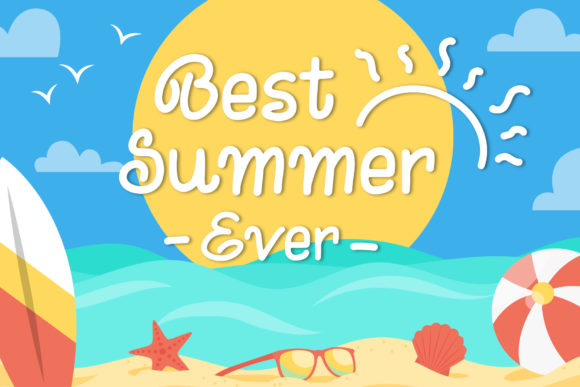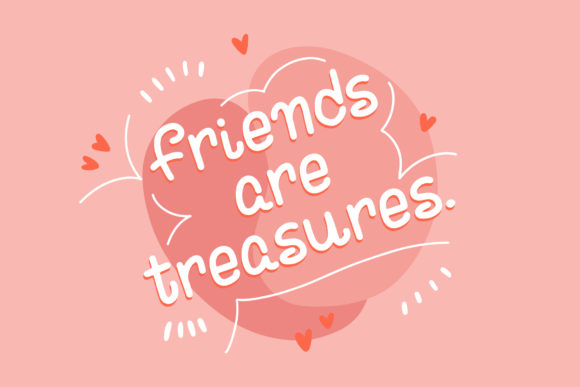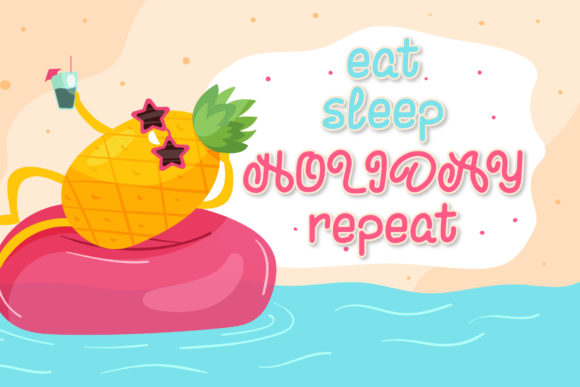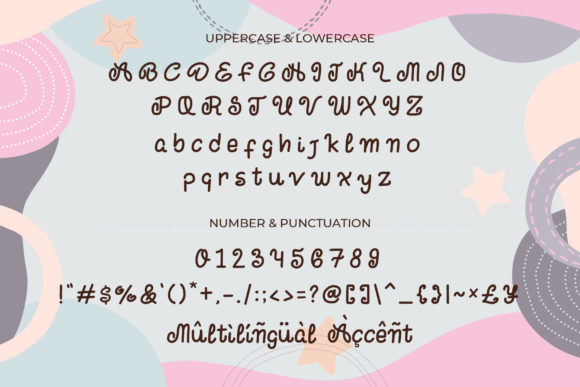
Have you ever been brainstorming a new project, pouring over sketches and color palettes, and suddenly, the perfect font pops into your mind? That’s exactly what happens when you come across the Beauties Forest Font. This adorable display font is a game-changer for designers looking to add a dash of playfulness to their work.
Beauties Forest Font is more than just a pretty face – it’s a versatile tool designed to elevate your creative ideas and make them truly unforgettable. Its unique, quirky style is guaranteed to bring a smile to your audience’s faces and set your projects apart from the crowd.
Beauties Forest Font Key Features
- Unique Characteristics: The font’s whimsical and elegant design makes it perfect for creating a sense of wonder and magic in your designs.
- Design Style: A mix of fantasy and nature-inspired elements, resulting in a distinctive and captivating visual identity.
Beauties Forest Font Review
Overall, I think Beauties Forest Font is a visually appealing and whimsical script font. It’s perfect for designers who want to add a touch of nature and elegance to their designs. ✨
- Unique and intricate design elements that evoke a sense of the forest.
- Good legibility, making it suitable for body text and headings.
- Many styles and weights available, offering a lot of versatility.
- Works well in digital and print formats.
However, there are some limitations to consider. ⚠️
- May not be ideal for headlines or titles due to its cursive nature.
- Some letters can be difficult to read at small font sizes.
- Not suitable for bold or sans-serif designs.
- May require manual adjustments to achieve perfect spacing and alignment.
In conclusion, Beauties Forest Font is a beautiful and unique font that’s perfect for designers who want to add a touch of whimsy and nature to their designs. While it may have some limitations, its charm and versatility make it a great addition to any font collection.
Use the Beauties Forest Font for titles, headings, and emphasis.
Pair it with other elegant fonts for a unique look.
Brand logos and marketing materials
Editorial and publishing projects
Carolyna Pro is a modern, elegant script font that is perfect for creating luxurious and sophisticated designs. It’s ideal for branding, invitations, and high-end packaging. Compared to Beauties Forest Font, Carolyna Pro has a more refined and polished look, making it suitable for high-end designs.
Great Vibes is a beautiful, handwritten font that is perfect for creating playful and whimsical designs. It’s ideal for branding, social media, and advertising campaigns. Compared to Beauties Forest Font, Great Vibes has a more casual and relaxed feel, making it suitable for designs that require a friendly and approachable tone.
Alex Brush is a elegant, handwritten font that is perfect for creating sophisticated and luxurious designs. It’s ideal for branding, invitations, and high-end packaging. Compared to Beauties Forest Font, Alex Brush has a more refined and polished look, making it suitable for high-end designs.
Dancing Script is a beautiful, handwritten font that is perfect for creating elegant and sophisticated designs. It’s ideal for branding, invitations, and high-end packaging. Compared to Beauties Forest Font, Dancing Script has a more dynamic and flowing feel, making it suitable for designs that require a sense of movement and energy.
Unleashing Creativity with Beauties Forest Font
Create enchanting wedding invitations that set the tone for a magical wedding celebration. The Beauties Forest Font adds a touch of elegance and whimsy to your design.
What is the font style and classification of Beauties Forest Font?